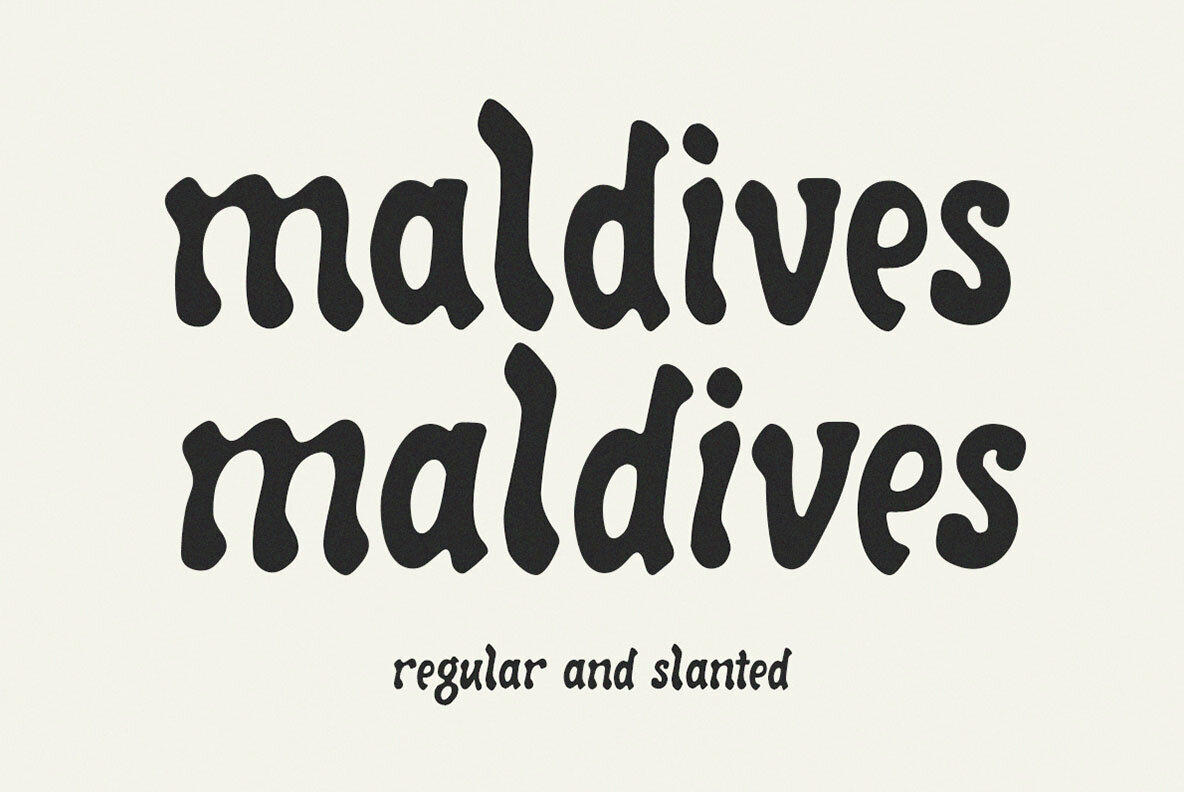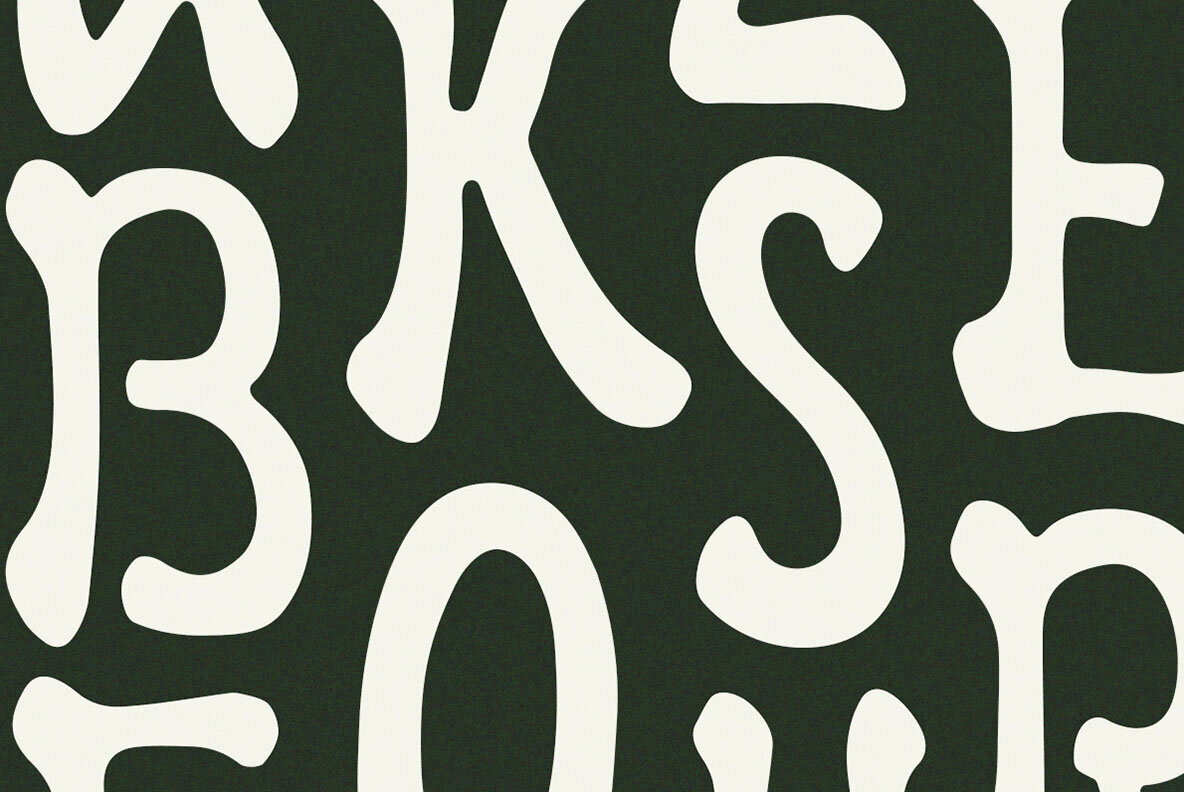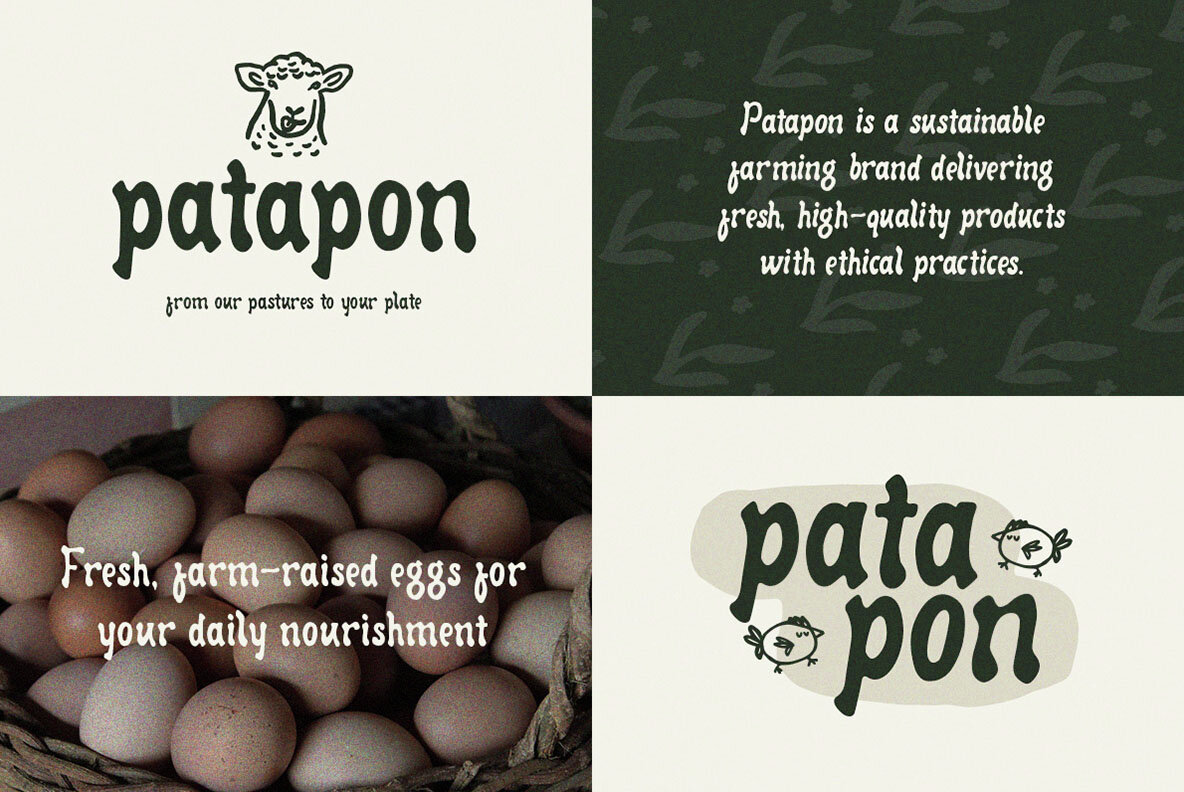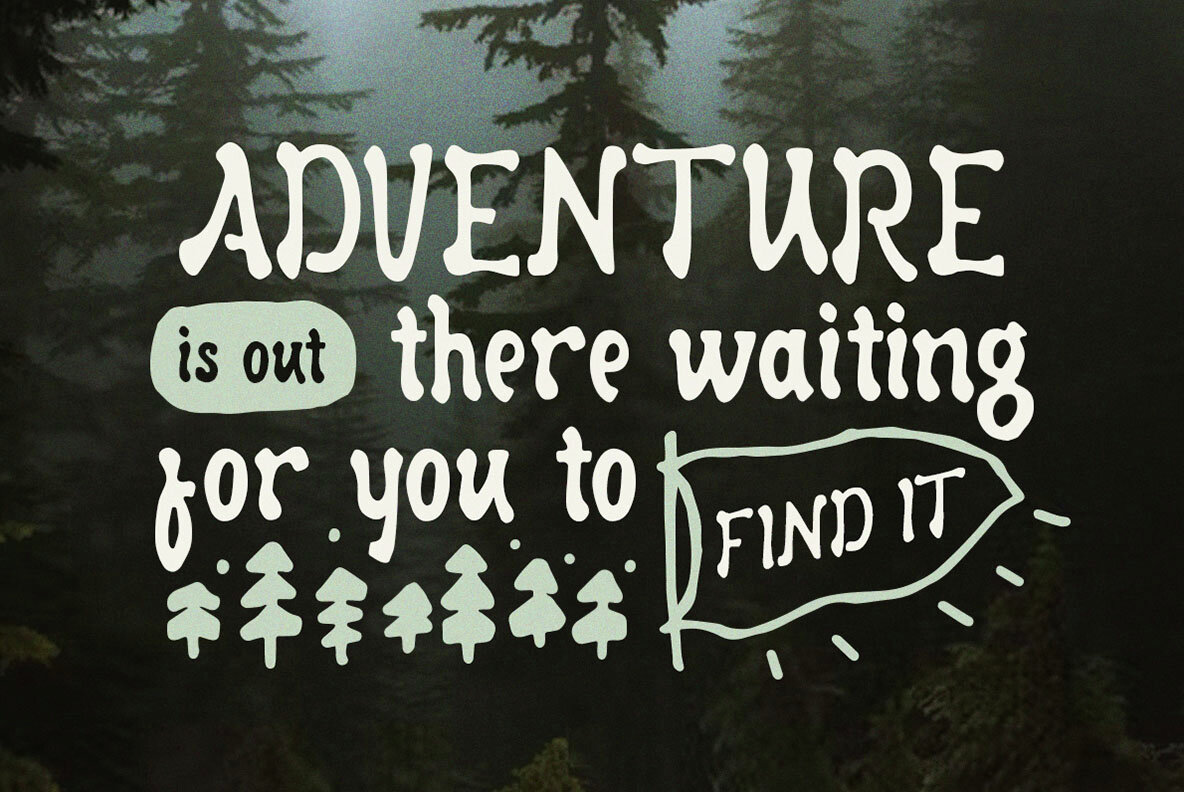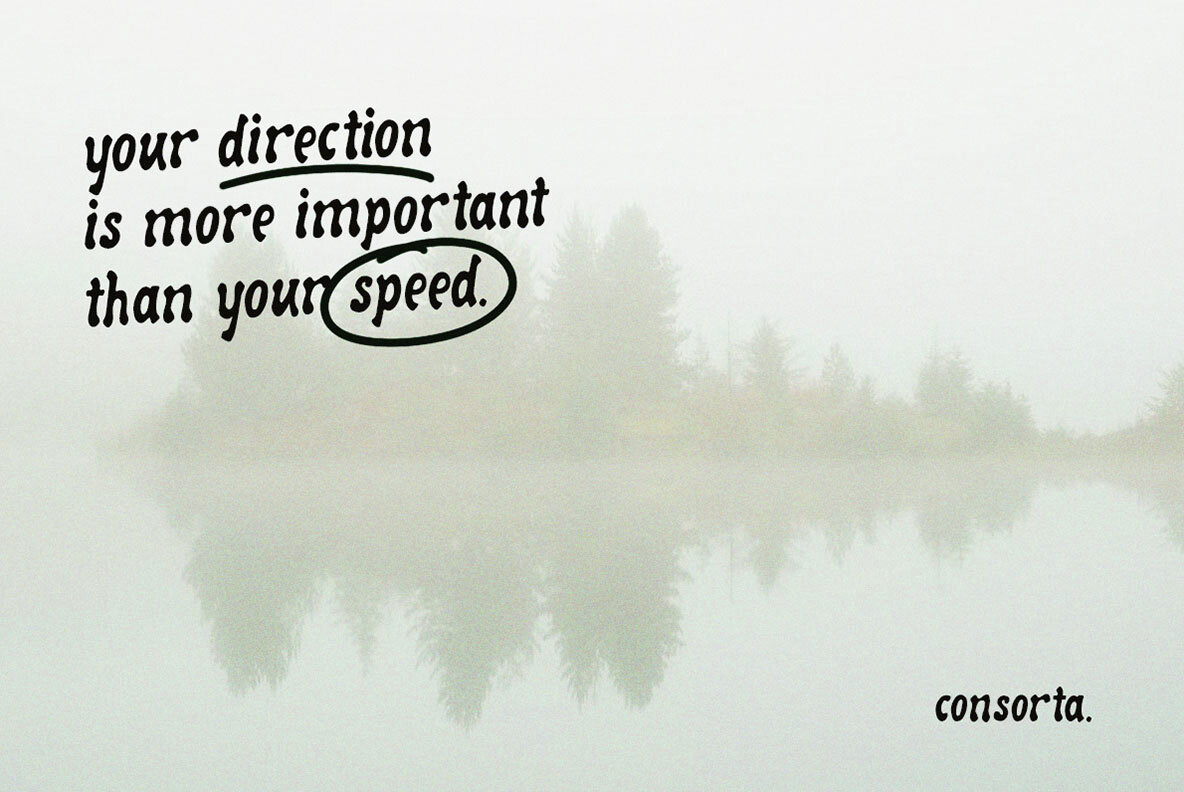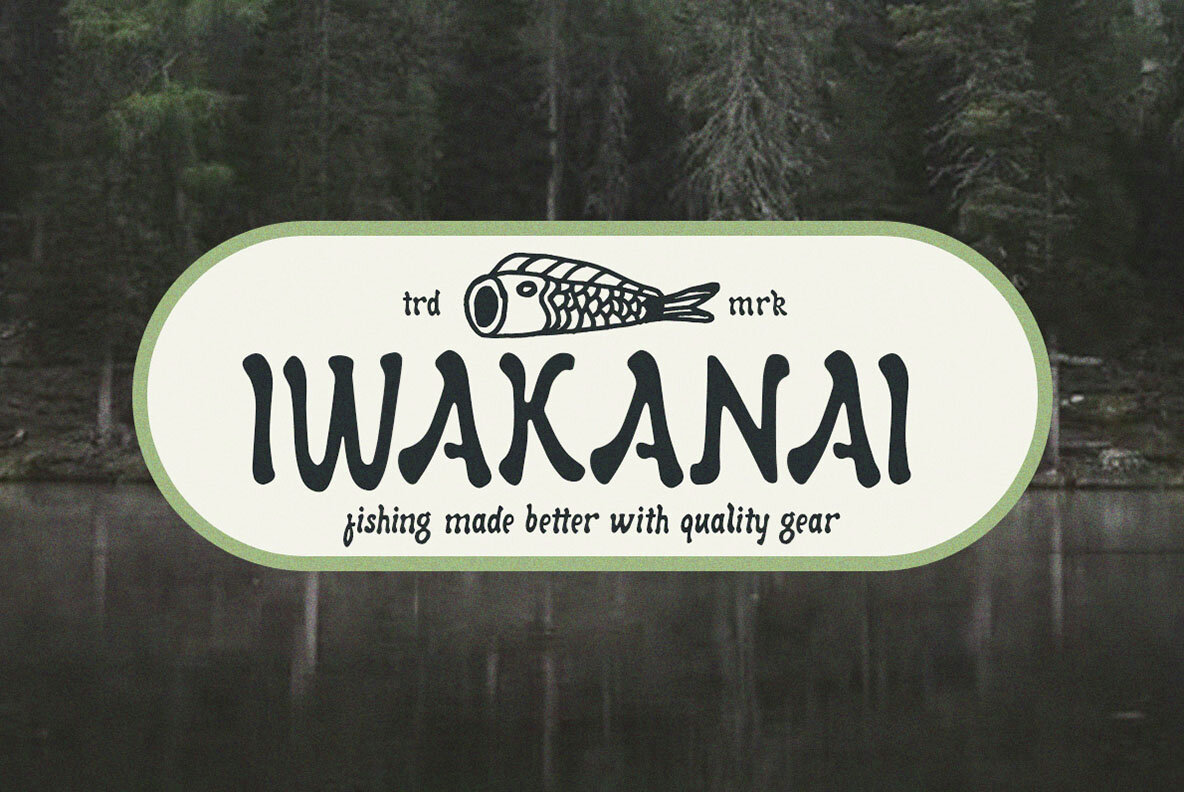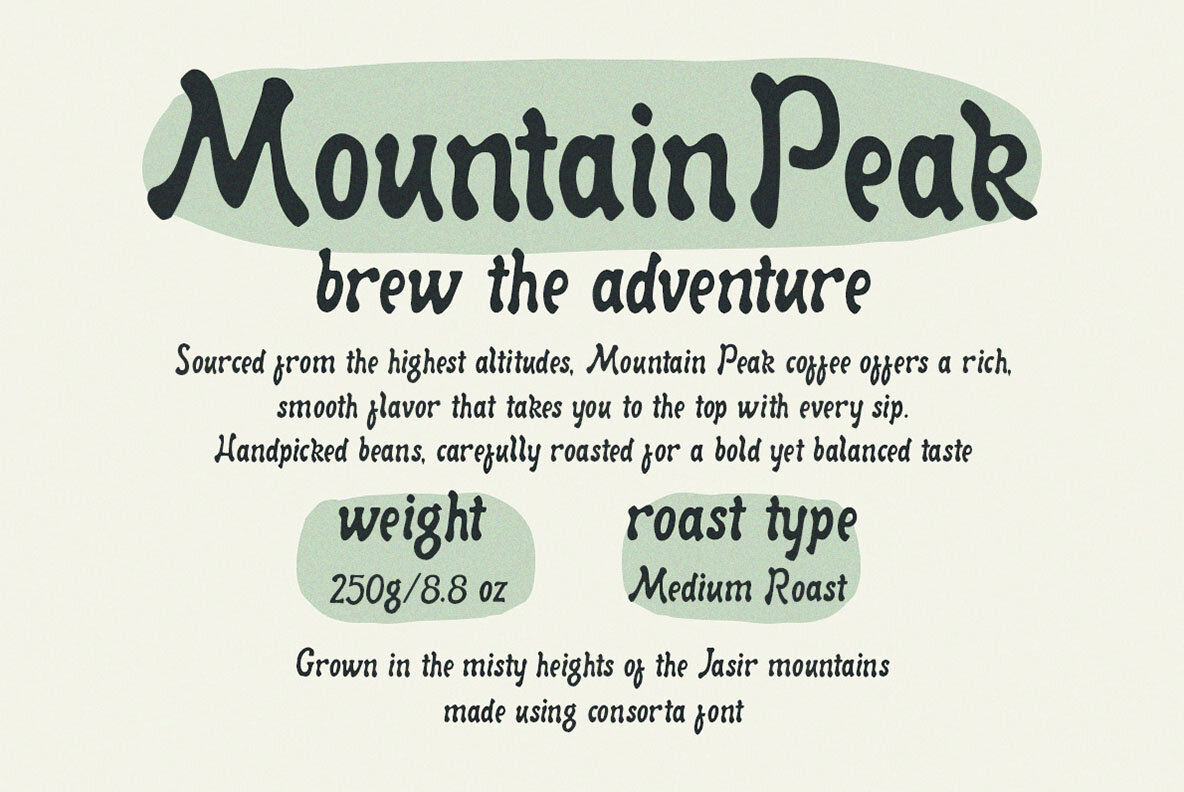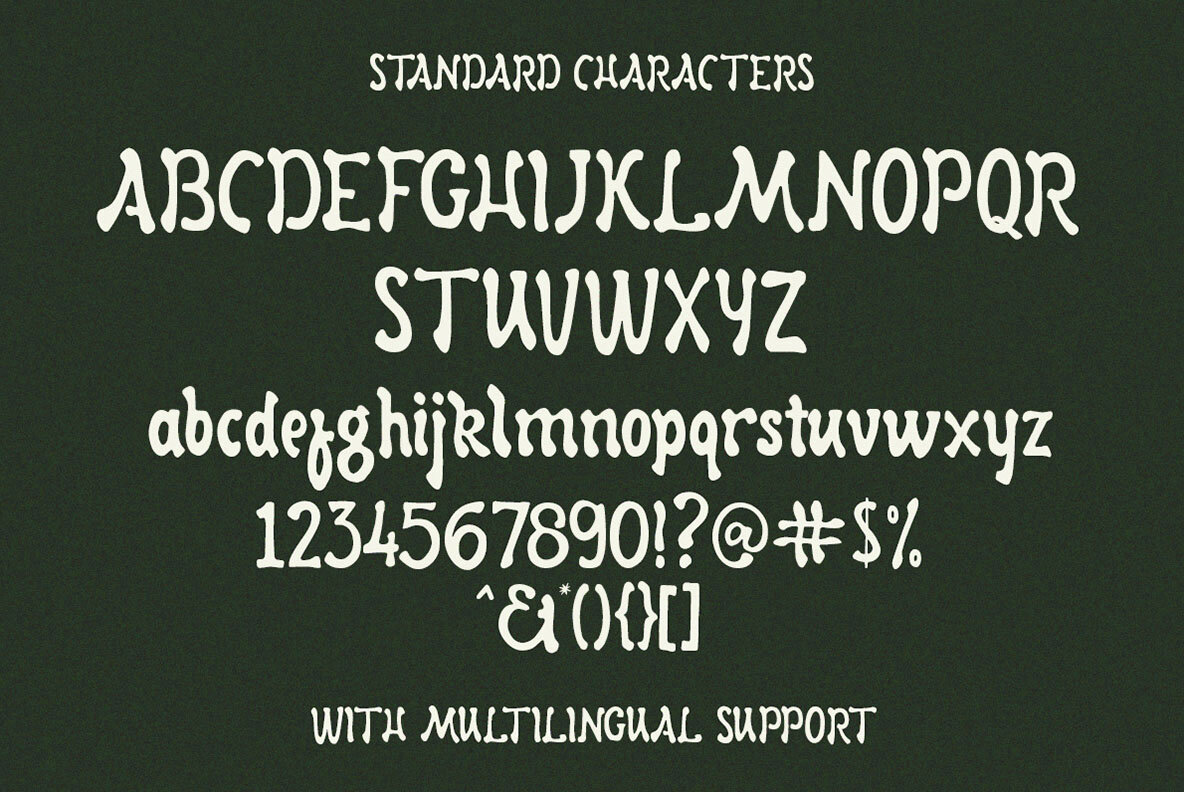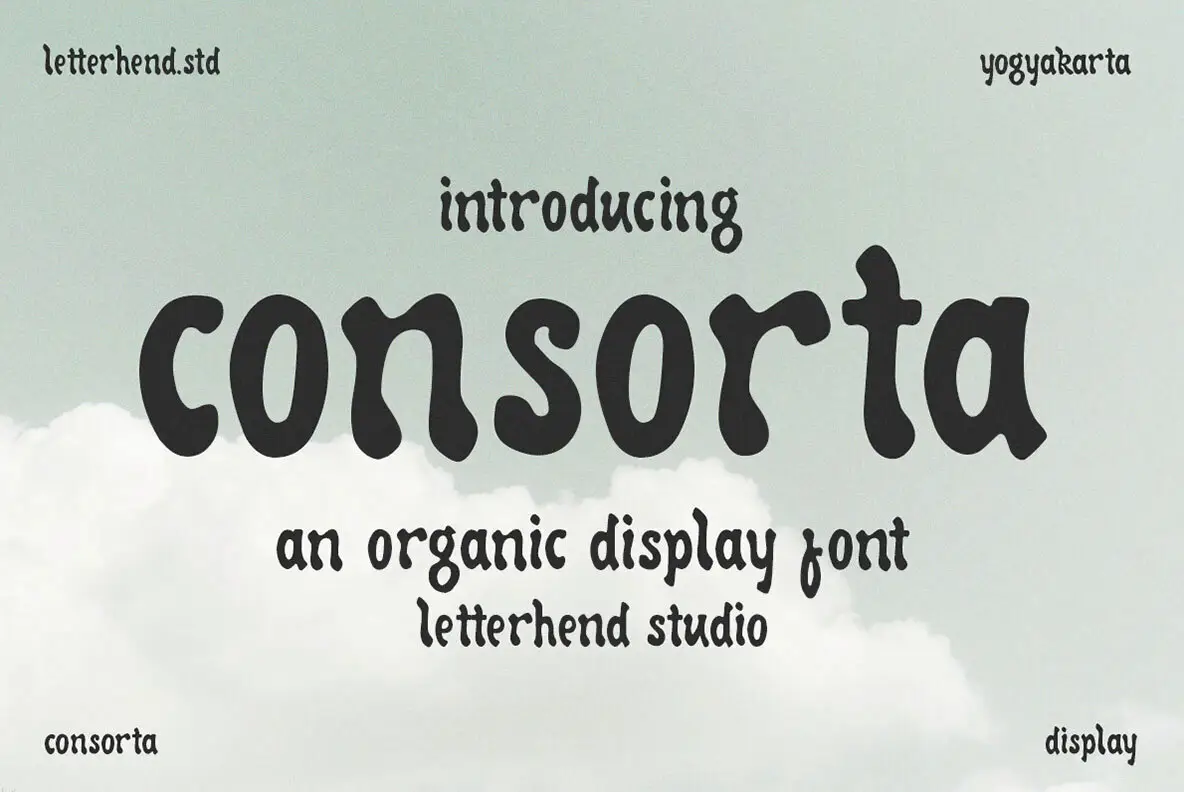
Consorta Font
Consorta is a unique display font that masterfully combines the bold, dramatic essence of Gothic blackletter with a modern, casual aesthetic. The design features fluid curves and softened edges, adding a contemporary charm while maintaining the timeless elegance of traditional blackletter styles. This font is an excellent choice for projects that require a touch of sophistication and creativity.
Key features of Consorta include uppercase and lowercase letters, numbers, and standard punctuation. It also supports multiple languages and is PUA-encoded, ensuring easy access to a wide variety of glyphs. To fully utilize Consorta's capabilities, use software that supports OpenType features and Glyphs panels, such as Adobe applications and CorelDraw, which will allow you to explore all available glyph variations.